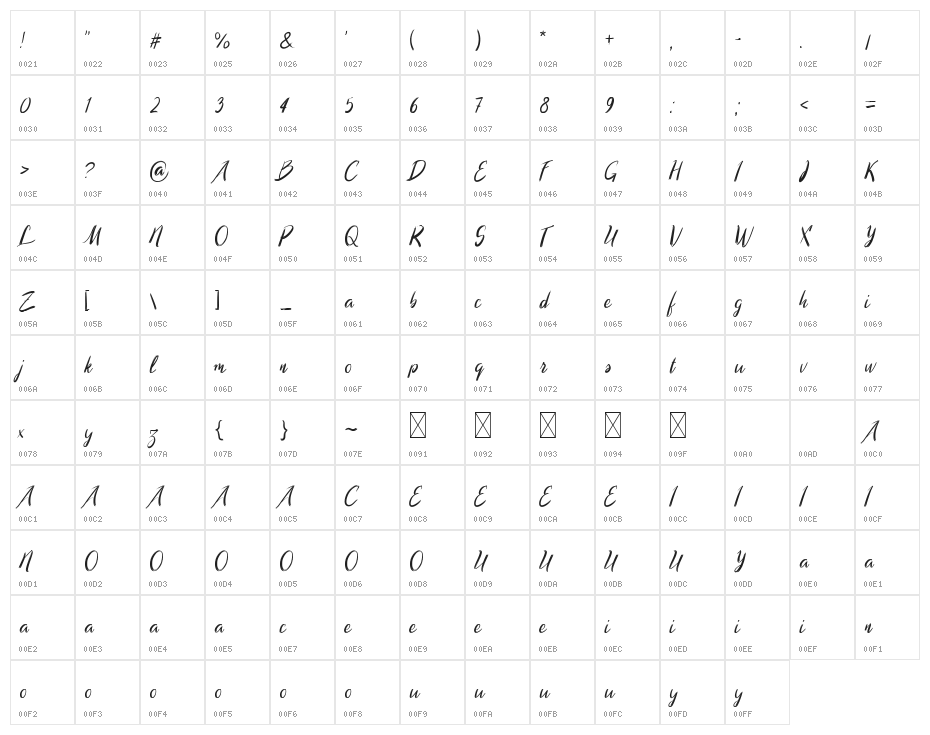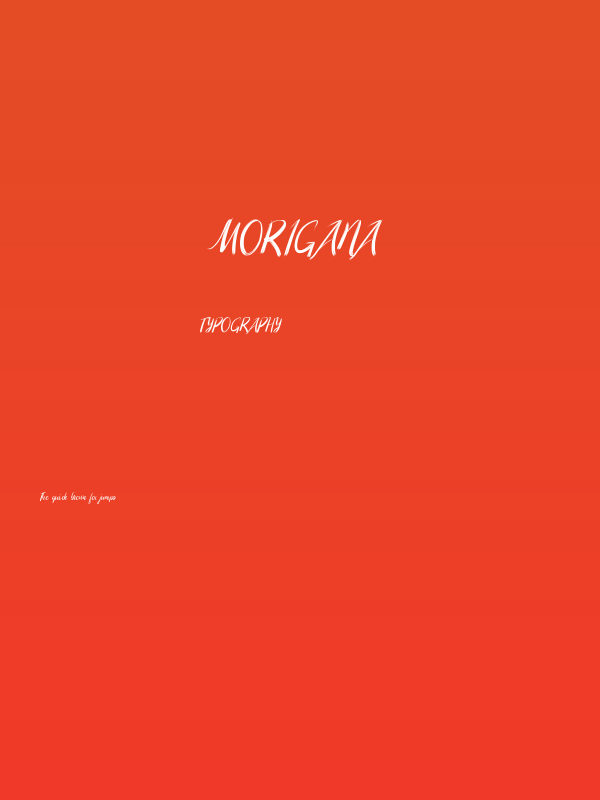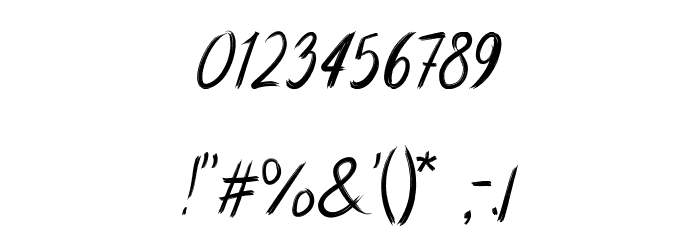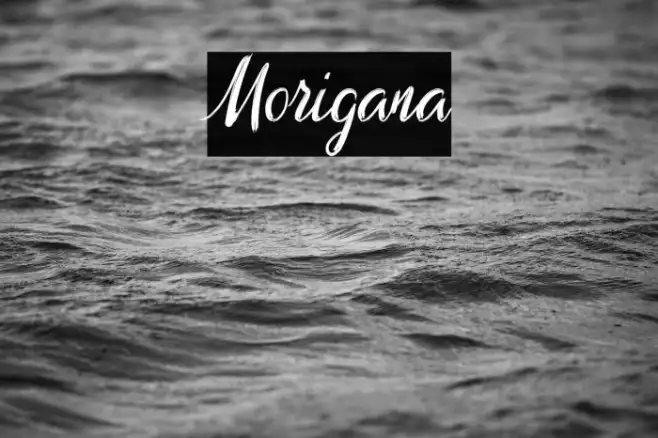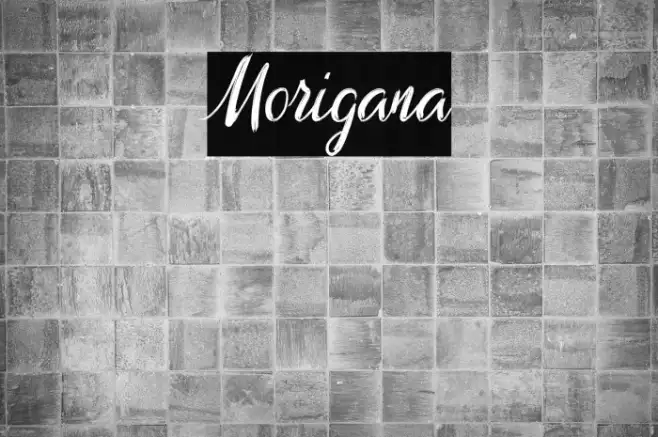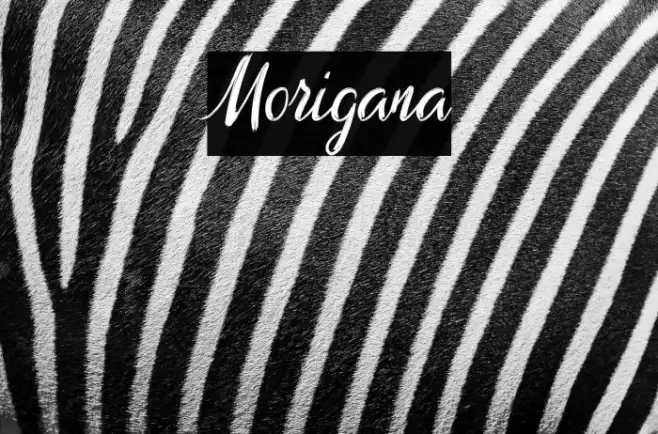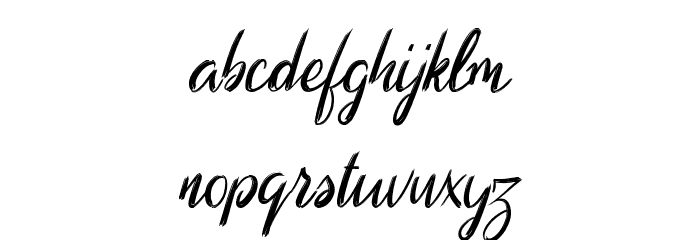
Morigana Font
This font exudes a dynamic and expressive style, characterized by its flowing, cursive script that mimics the fluidity of handwriting. The letters are elegantly connected, with a slight slant that adds a sense of movement and grace. The strokes vary in thickness, providing a medium contrast that enhances readability while maintaining an artistic flair. The uppercase letters are bold and prominent, while the lowercase letters are more delicate, offering a harmonious balance. The numerals and special characters are crafted with the same attention to detail, ensuring consistency across all glyphs. This font is perfect for projects that require a personal touch, such as invitations, greeting cards, or branding materials.
| Proposed Projects | Ideal for invitations, greeting cards, branding, and artistic projects. |